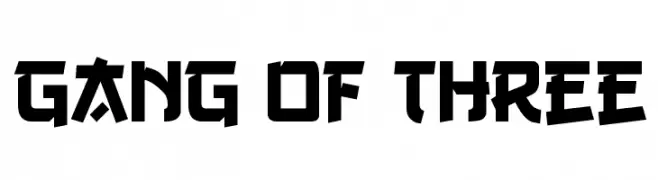
A bold, playful font with thick, rounded characters and a whimsical style.
A bold, playful font with thick, rounded strokes and a bubbly appearance.
A geometric, angular font with tall, narrow letterforms and a modern aesthetic.
A bold, geometric font with a futuristic, robotic aesthetic.
A bold, 3D shadowed font with a playful and dynamic style.
A bold, italicized font with a textured, vintage appearance.
A display font made from silhouettes of giant sea animals.
A bold, rugged font with a hand-drawn, graffiti-like style.
A playful, handwritten-style font with consistent stroke thickness and a casual appearance.
A bold, textured handwritten font with dynamic brush strokes.
A bold, rounded font with a playful, hand-drawn style.
A bold, tiger-striped decorative font perfect for creative projects.
A bold, angular font with a strong, geometric style.
A bold, rugged, hand-drawn font with thick, blocky characters.
A bold, playful font with a distressed, artistic style.
A playful, pixelated font with a hand-drawn, quirky style.
A bold, jagged font with sharp edges and a dynamic, energetic style.
A bold, geometric font with strong, thick strokes for impactful design.
A modern sans-serif font with medium weight and clean lines.
A classic serif font with high contrast and sharp serifs, exuding elegance and sophistication.
A geometric, futuristic font with angular strokes and a modern aesthetic.
An ornate and elegant script font with flowing, decorative letterforms.
An elegant script font with ornate, flowing characters and intricate swashes.
A lively, handwritten font with elegant, flowing strokes and a personal touch.
A decorative dingbat set of illustrated women's heads in a vintage style.
A bold, dynamic script font with a playful, handwritten style.
A bold, handwritten-style font with a playful and energetic appearance.